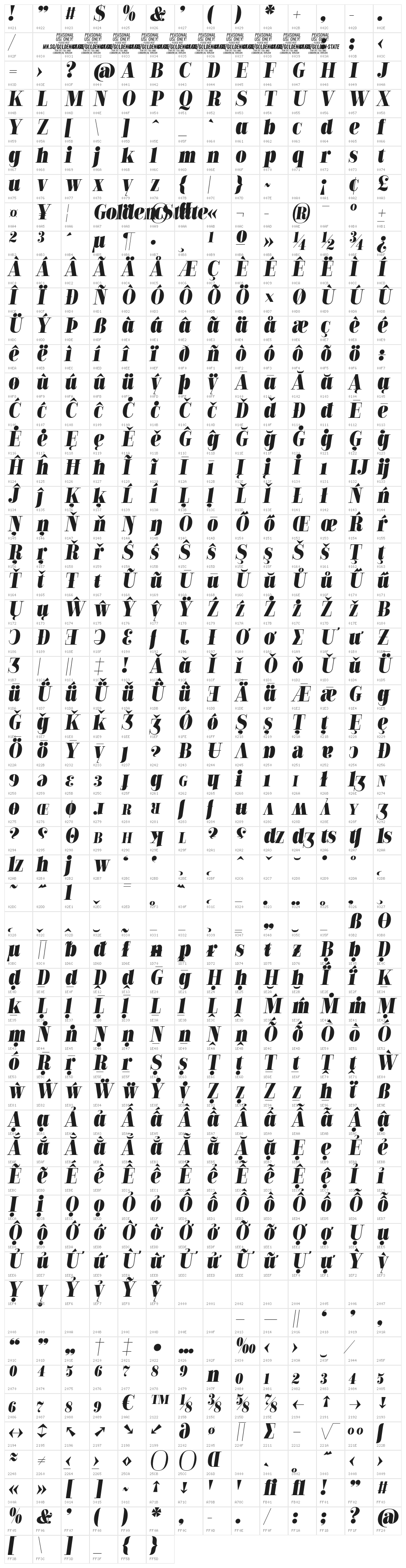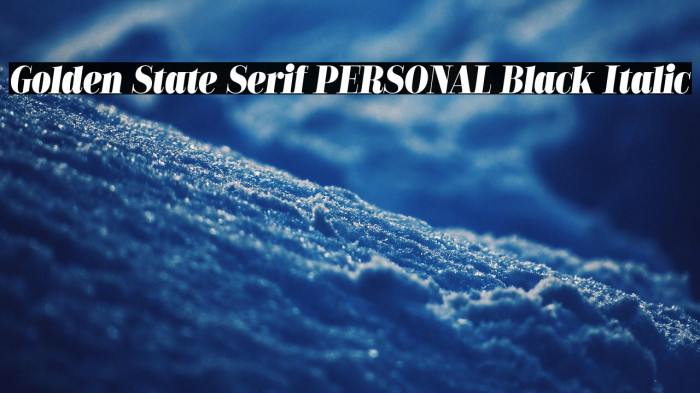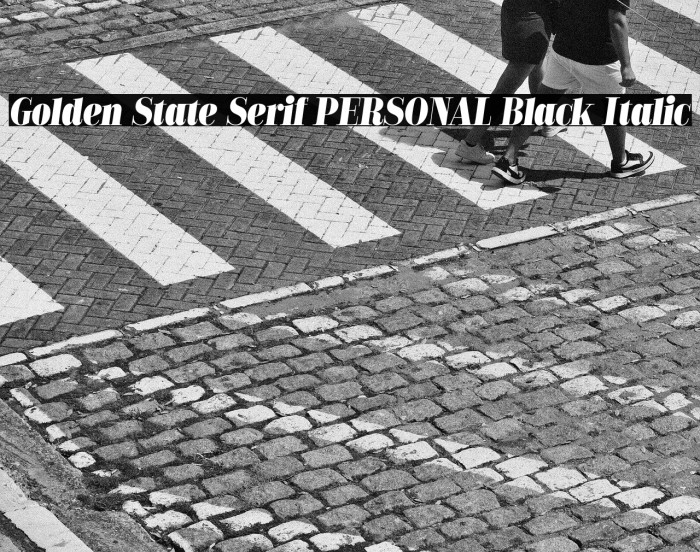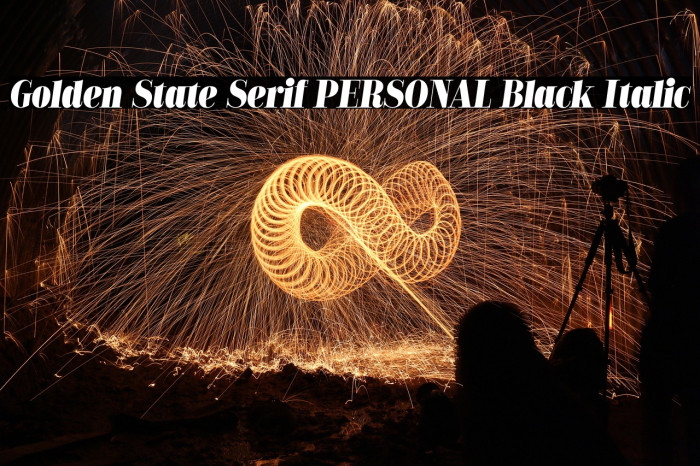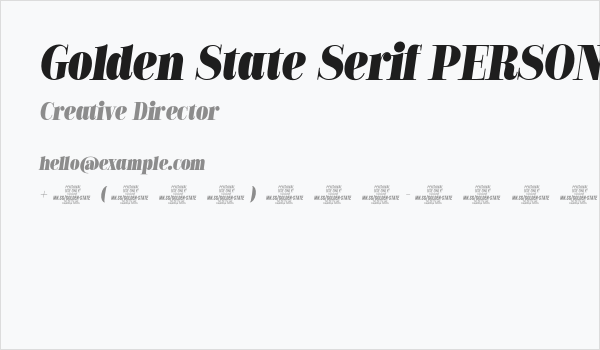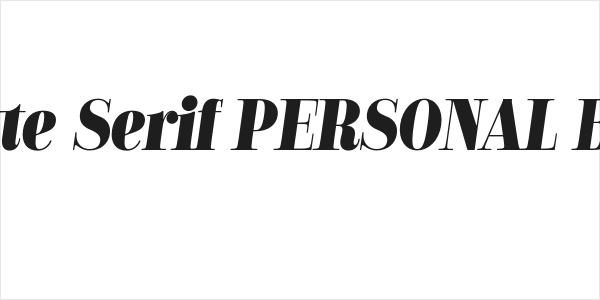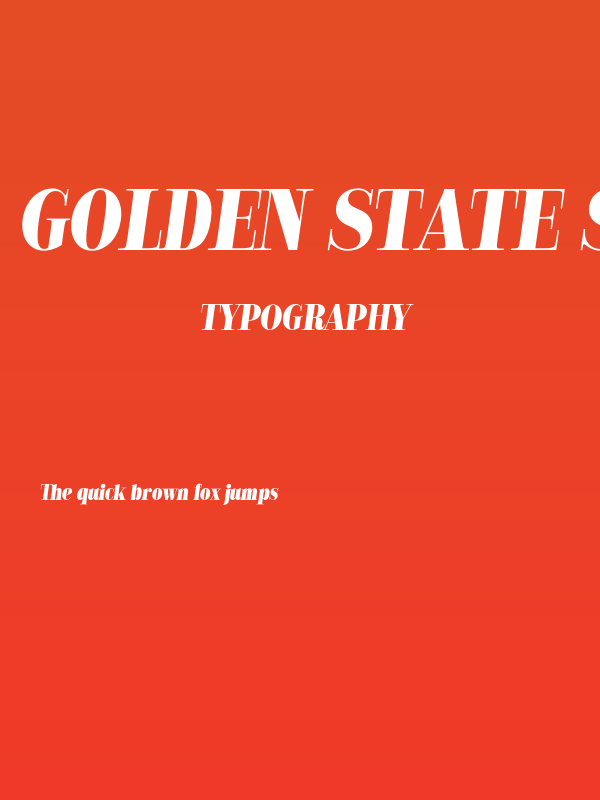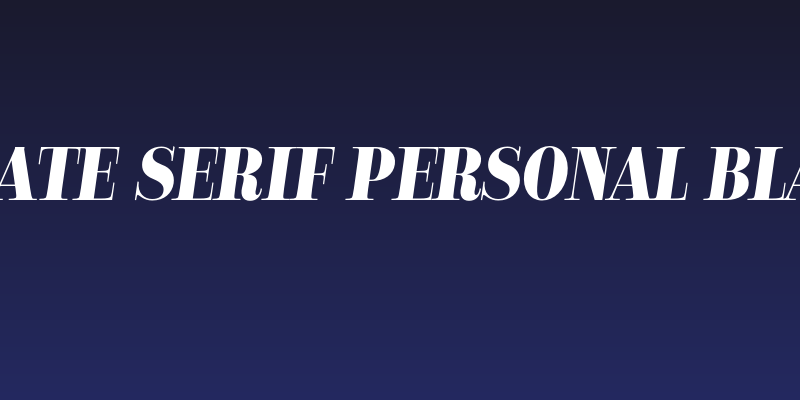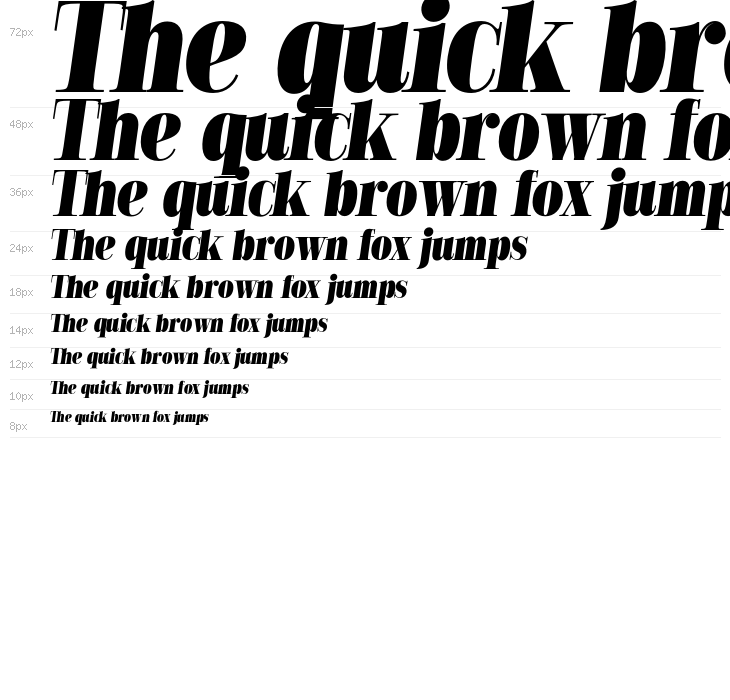
Golden State Serif PERSONAL Black Italic Font
Golden State Serif PERSONAL Black Italic Description
This font features a bold and elegant serif style with a pronounced italic slant, giving it a dynamic and sophisticated appearance. The uppercase letters are tall and commanding, while the lowercase letters maintain a consistent flow with smooth curves and sharp serifs. The numerals are equally bold, ensuring readability and impact. Special characters are designed with the same attention to detail, making them suitable for a variety of uses. The overall design is both classic and modern, making it versatile for different design needs.